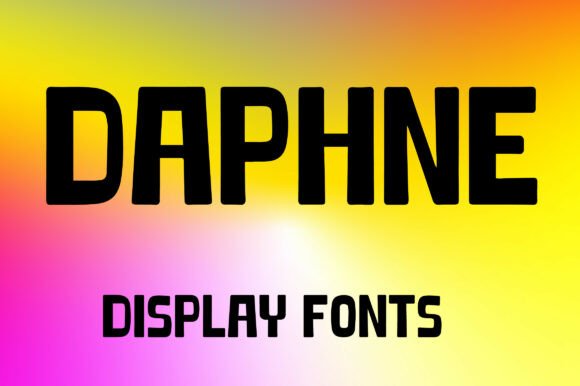
Daphne: A Bold Typeface for Modern Branding
Character and Craft: What Makes Daphne Stand Out
When you first encounter Daphne, its personality is immediate. This isn't a quiet, background typeface. It's a bold display font built for moments that demand attention. The design marries a strong modern aesthetic with a surprising geometric playfulness. Its uppercase letterforms are constructed with thick, black strokes and tall proportions, giving it a commanding presence. Look closer, and you'll notice the rounded corners and subtly irregular, handcrafted details. These nuances soften its geometric rigidity, transforming it from merely bold into something confidently creative. It possesses a voice that is both contemporary and approachable, avoiding the coldness that some purely geometric fonts can project. This premium font is designed for impact, making it a valuable asset in any designer's toolkit.
Where Daphne Finds Its Voice: Practical Applications
Understanding a typeface's strengths is key to using it effectively. Daphne's inherent boldness and character make it exceptionally well-suited for projects where the typography itself is a central design element. Think of it as the headline act, not the supporting player.
- Logo Design & Brand Identity: For startups and brands aiming for a memorable mark, Daphne can form the core of a powerful logo design. Its unique blend of strength and craft helps create logos that feel both professional and full of personality, aiding in brand recognition from the very first glance.
- Editorial & Packaging Design: In editorial design, it excels at crafting magazine covers, section headers, and pull quotes that draw readers in. Similarly, in packaging design, it can make a product name leap off the shelf, communicating confidence and modern style instantly.
- Digital Presence & Social Media: The digital landscape is crowded. Using Daphne for website hero sections, key headers in web design, or as the primary typeface for social media graphics ensures your message isn't scrolled past. It’s built for on-screen impact, maintaining its clarity and appeal at various sizes.
- Apparel & Merchandise: The font's robust structure translates beautifully to physical products. It’s an excellent choice for apparel designs, poster prints, and merchandise where the text needs to be legible from a distance and carry a distinct stylistic weight.
Making Strategic Design Choices with a Display Font
Choosing a display font like Daphne is a strategic decision that influences how your audience perceives your message. Its use directly affects visual hierarchy, instantly signaling to viewers what the most important information is. A bold, distinctive typeface can elevate brand perception, suggesting a company that is confident, modern, and invested in its visual identity. Consistency is another key benefit; using Daphne across headlines and key touchpoints helps build a cohesive and recognizable brand identity.
Pairing for Balance and Readability
The strength of a characterful display font is best realized when paired thoughtfully. Daphne’s pronounced style means it rarely needs to fight for attention. The most effective approach is to combine it with a cleaner, more neutral companion. A simple sans serif font for body copy provides excellent contrast, allowing Daphne’s headlines to shine without overwhelming the reader. For a different feel, pairing it with a classic serif font can create an intriguing dialogue between modern boldness and traditional elegance. The key is to ensure the supporting typeface doesn’t compete for personality, creating a clear and harmonious font pairing.
Evaluating Fit and Practical Considerations
Before integrating any new design asset, a practical evaluation is crucial. First, assess the project’s tone. Daphne’s playful geometric character is ideal for creative, energetic, or fashion-forward brands but might not suit the solemnity of a law firm or a conservative financial institution. Always test the font in context. Mock up your logo, a social media post, or a packaging label to see how it feels within the overall composition. Review the included character set—while it covers uppercase A–Z and numbers, ensure it meets all your project’s needs. Finally, for any commercial use, confirm you have the appropriate commercial font license. This professional step protects your work and respects the typographer’s craft, ensuring your brand identity is built on a solid, ethical foundation.